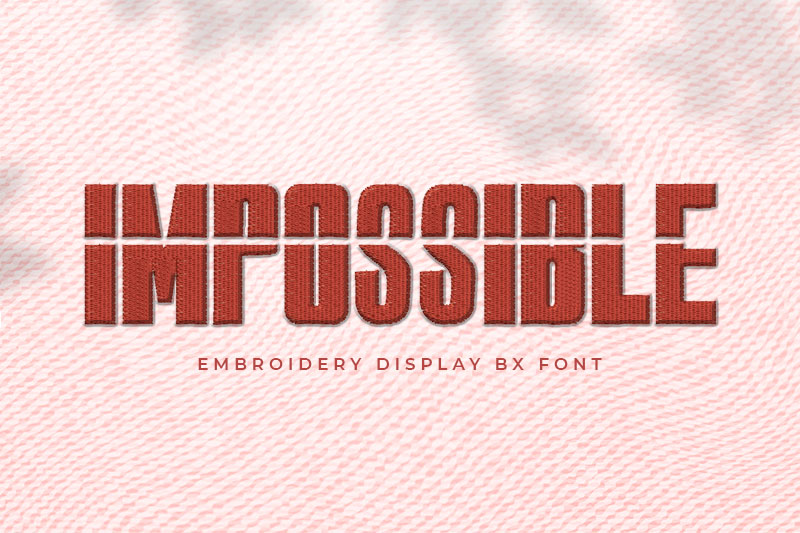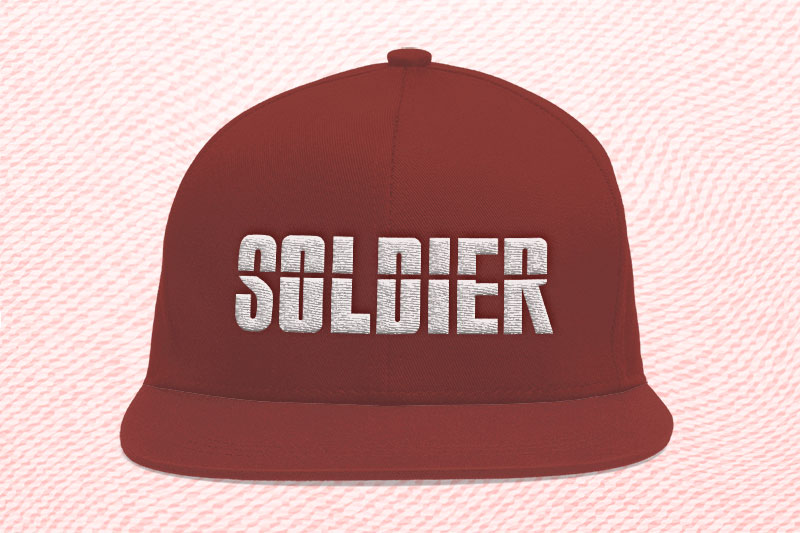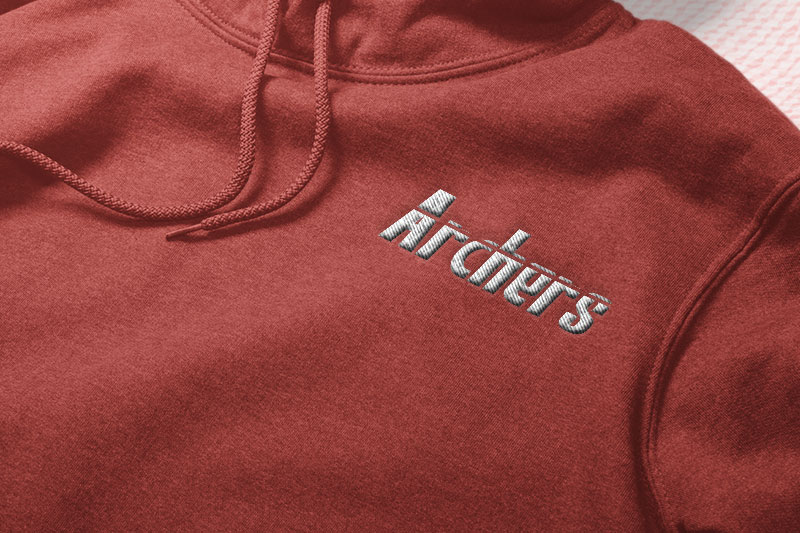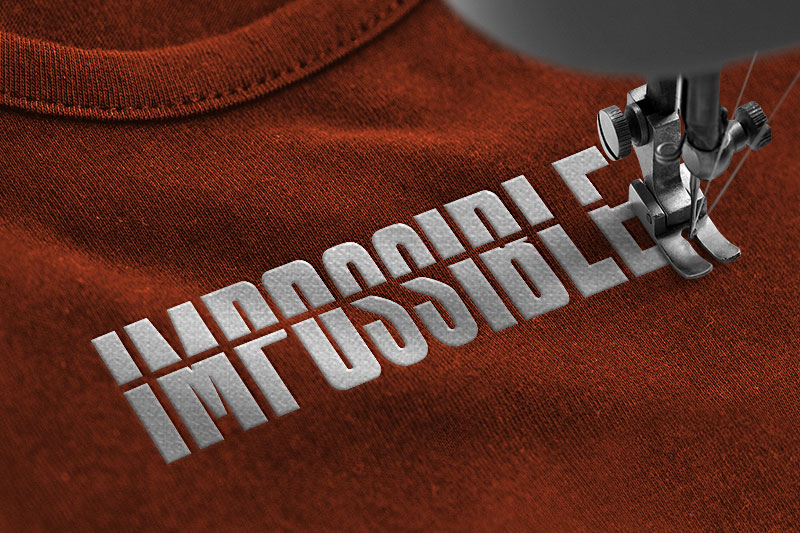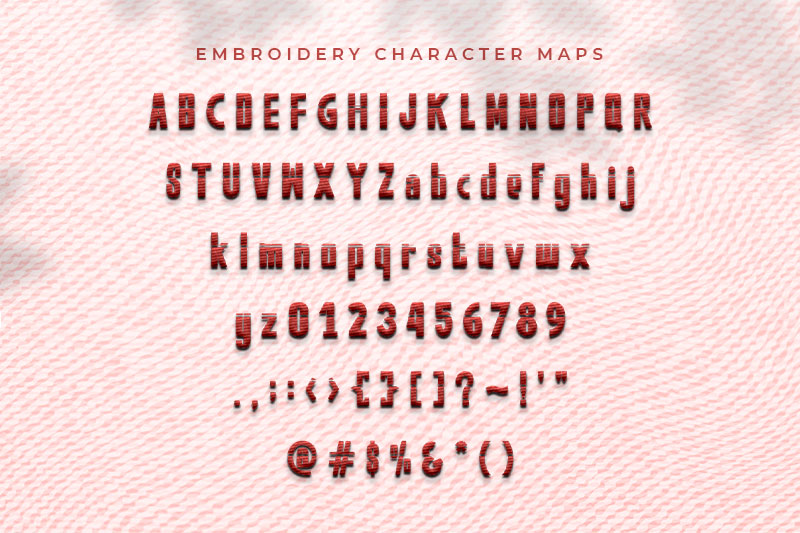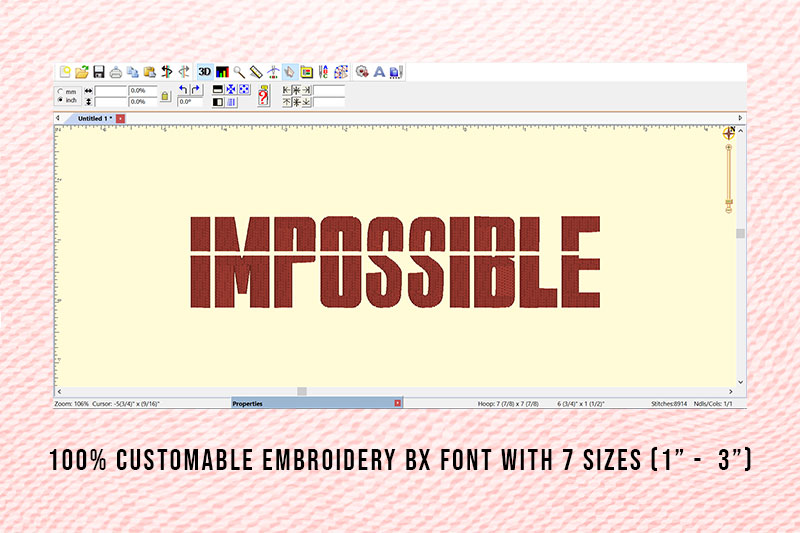
Impossible Embroidery Font is a new creation that is created as attractive as possible by adding a variation of the embroidery font. This font is here to provide another reference for those who are interested in using an embroidered font for many products. Impossible Embroidery Font has been made very neat and clean by not adding additions to all letters. The shape of his body was being hauled and blunt at some of the ends. This font has high readability. The appearance of this font is perfect when embroidered with small embroidery.
Impossible Embroidery Font is one of the simple embroidery fonts that are advisable to be combined with several products such as t-shirts, jackets, hoodies, and hats. This font can be bordered as wall hangings and hats made of cloth.
Impossible Embroidery Font creates a cool, simple, and straightforward impression of the product it features. This impression makes Impossible Embroidery Font the font that must be the top choice when choosing an embroidery font. This font belongs to legible fonts. It is beautiful when combined with the right colors and decorations.